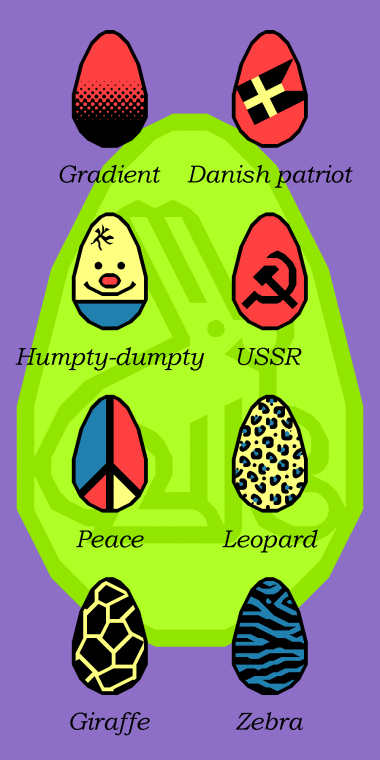
WOW!!!!!!!!!!!!!!!!!!!!!!!!!!!!!!!!!!!!!!!!!!!!!!!!!!!!!!!!!!!!!!!!!!!!!!!!!!!!!!!!!!!!!!!!!!!!!!!!!!!!!!!!!!!!!!!!!!!!!!!!!!!!!!!!!!!!!!!!!!!!!!!!
Yes. Absobulely. I completely agree.
What am I agreeing with? I have no idea. But this is great. I concur with 3killgor3.
Nice work...don't forget your sample!
Definitely dont forget the sample.....it would be great
And if the sample is not included, this won't qualify for the Illucomp... and that would be bad.
I won't forget my sample. Thank you all for reminding me ;) I'll just make a couple more eggs, and then make a sample.
Here's a sample. I might make a more creative one later - especially when I've made some more eggs - but in the event of that not happening at least I'm still enligible ;)
don't forget humpty dumpty :) very nice entry.
@FK: Here he is. Before his great fall obviously, but he's had a little one.
i like.
I'm with fk!
Bonus fun-fact: The giraffe was called a 'camelopard' by the romans since it looked like a camel with a leopards pattern. Source: http://en.wikipedia.org/wiki/Giraffe#Etymology
You're obviously missing a spiral egg. :P
Well done. The family grows OK.
Let's not forget what easter is about (well to me - a protestant christian - anyway). I wrote the holydays in Danish, because they are the names I am most familiar with. They are "Palmesøndag" (Palm Sunday), "Skærtorsdag" (Maundy Thursday), "Langfredag" (Lit. 'Long Friday', but others call it Good Friday), and Påskesøndag (Easter Sunday).
Beautiful additions(: i like.
Very cool Eggs Bravo!
Thank you for supporting the faith of many people (me included) with your excellent work. I already know that this is not the main object of this font, but ... Who can set aside their beliefs or opinions when he / she loves what she is doing and he / she created and made ​​public this creation? Religion is a way to live life, and FS coexist here in many religions. That is the great secret of FS!